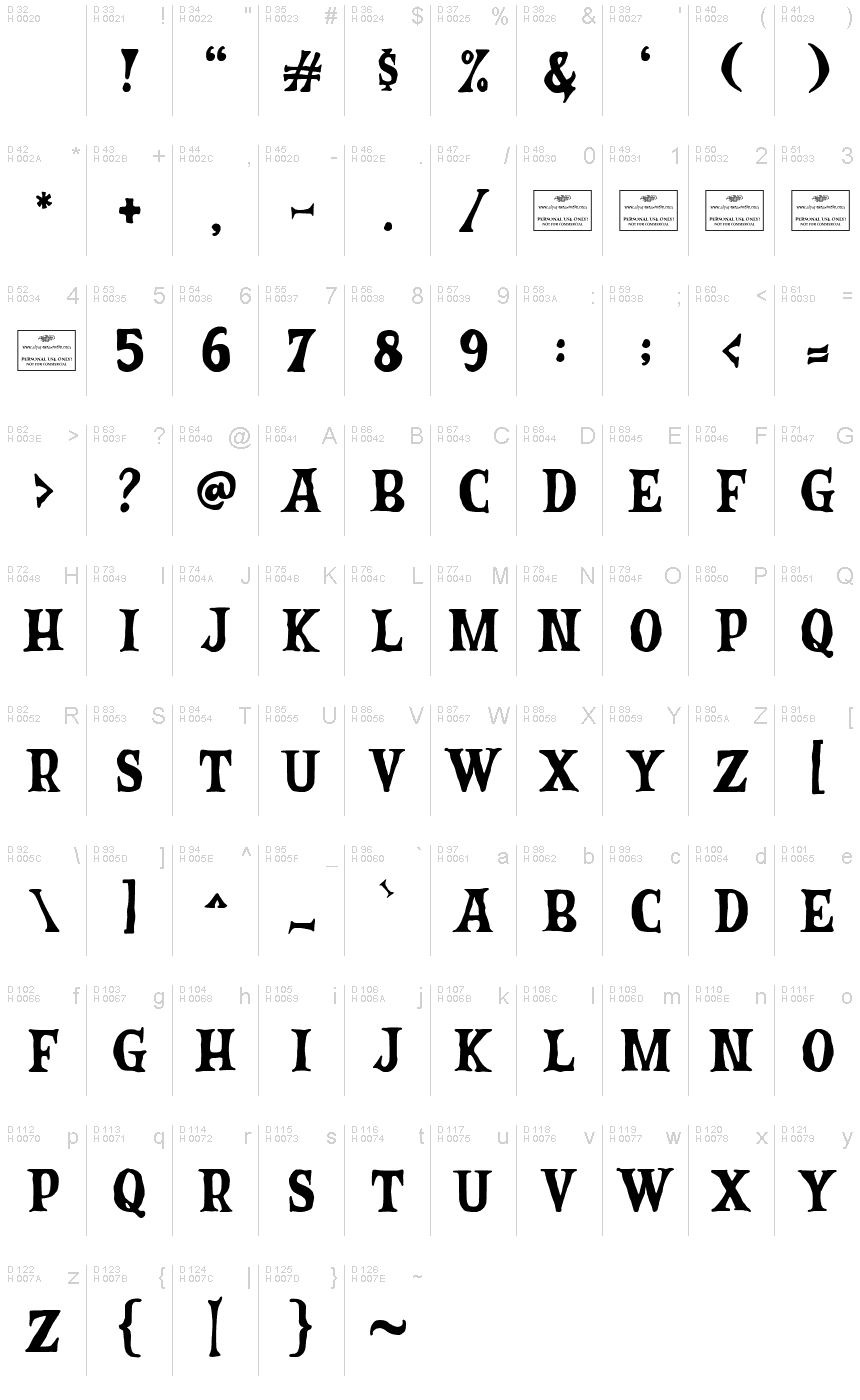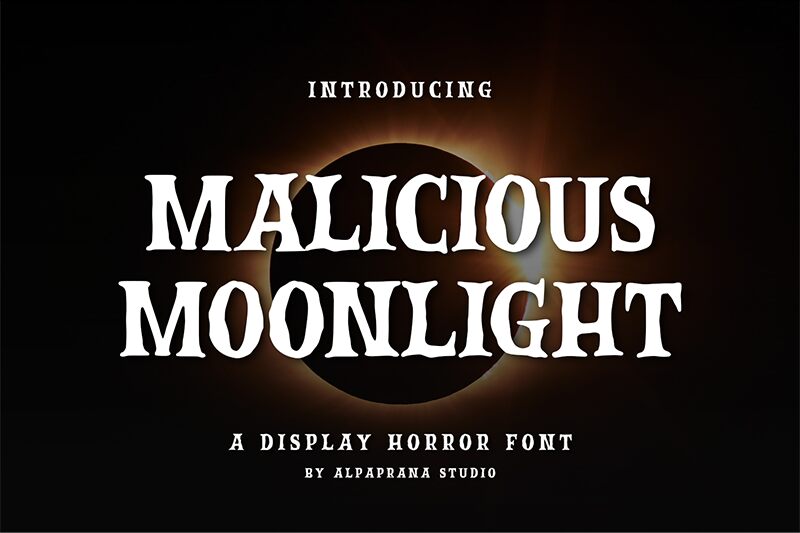
Malicious Moonlight
Malicious Moonlight, designed by Alpaprana Studio, is a captivating holiday font that embodies the spirit of Halloween. With its bold weight and modern horror aesthetic, this stunning display font is ideal for a wide range of projects.
Its versatility makes it perfect for creating impactful branding and logo designs that will leave a lasting impression. Use it for lettering and logotypes to add an element of eerie elegance to your designs. It's also well-suited for clothing and poster designs, giving them a touch of spooky sophistication. Whether you're working on packaging, shopping bags, or book covers, Malicious Moonlight will bring a dark charm to your creations. Additionally, it's great for photography projects and special events where you want to evoke an atmosphere of mystery and enchantment.